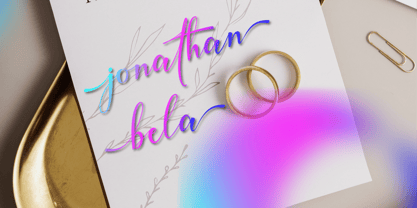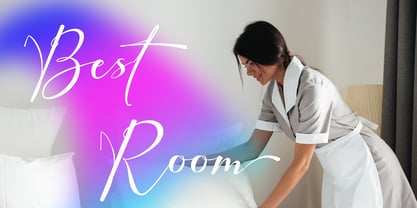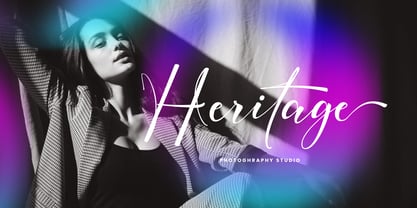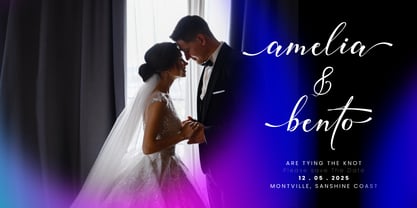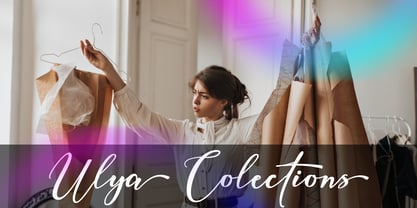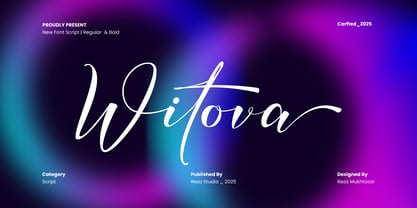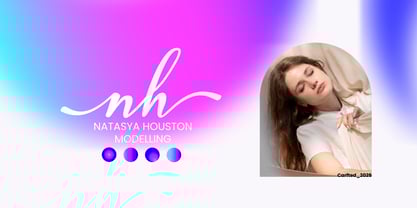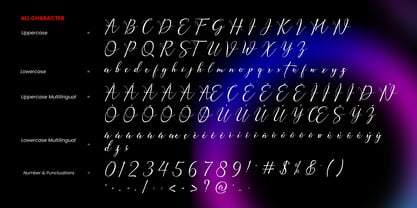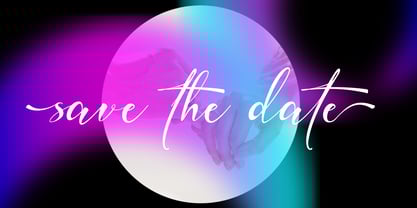
Witova
by Rezastudio
The Witova Font Family was designed by Reza Mukhtazar and published by Rezastudio. Witova contains 2 styles and family package options. More about this family
Witova is a modern script font with elegant, flowing strokes—perfect for branding, wedding invitations, packaging, logos, and social media. Comes in Regular and Bold styles with stylistic alternates and multilingual support to elevate your design with a personal, luxurious touch.
Designers: Reza Mukhtazar
Foundry: Rezastudio